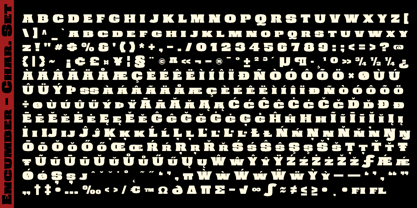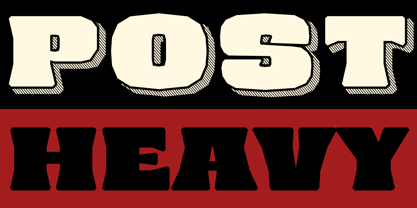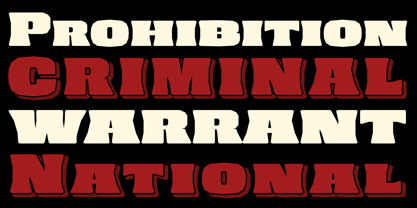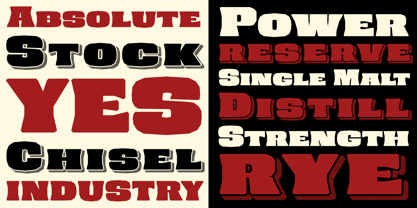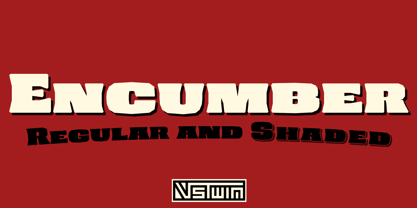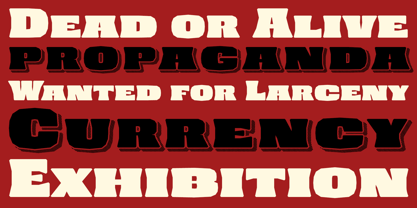
Encumber
La familia tipográfica Encumber fue diseñada por Brian J. Bonislawsky, Brian Jaramillo y publicada por VersusTwin. Encumber contiene 2 estilos y opciones de paquete familiar.
Encumber is the revival of a typeface family created by Brian Jaramillo as part of his Agency26 project known as Millstone.
From it's heavyweight stance and historical influences, Encumber carries a powerful presence that can be hard to deny. The Shaded variant adds even more of a historical vibe, playing with scripophily style etching shadows. The Encumber family definitely has a niche vibe to it, historical and serious, but also heavyweight and borderline friendly as well. How will you use it?
Diseñadores: Brian J. Bonislawsky, Brian Jaramillo
VersusTwin is a collaborative digital type foundry that pits Brian J. Bonislawsky and Brian Jaramillo - Gemini type designers with differing aesthetics - against each other in a mission to develop original cutting-edge typestyles. Collectively, during their individual foundry careers, Bonislawsky and Jaramillo have created more than 600 typefaces before starting VersusTwin in late 2004.